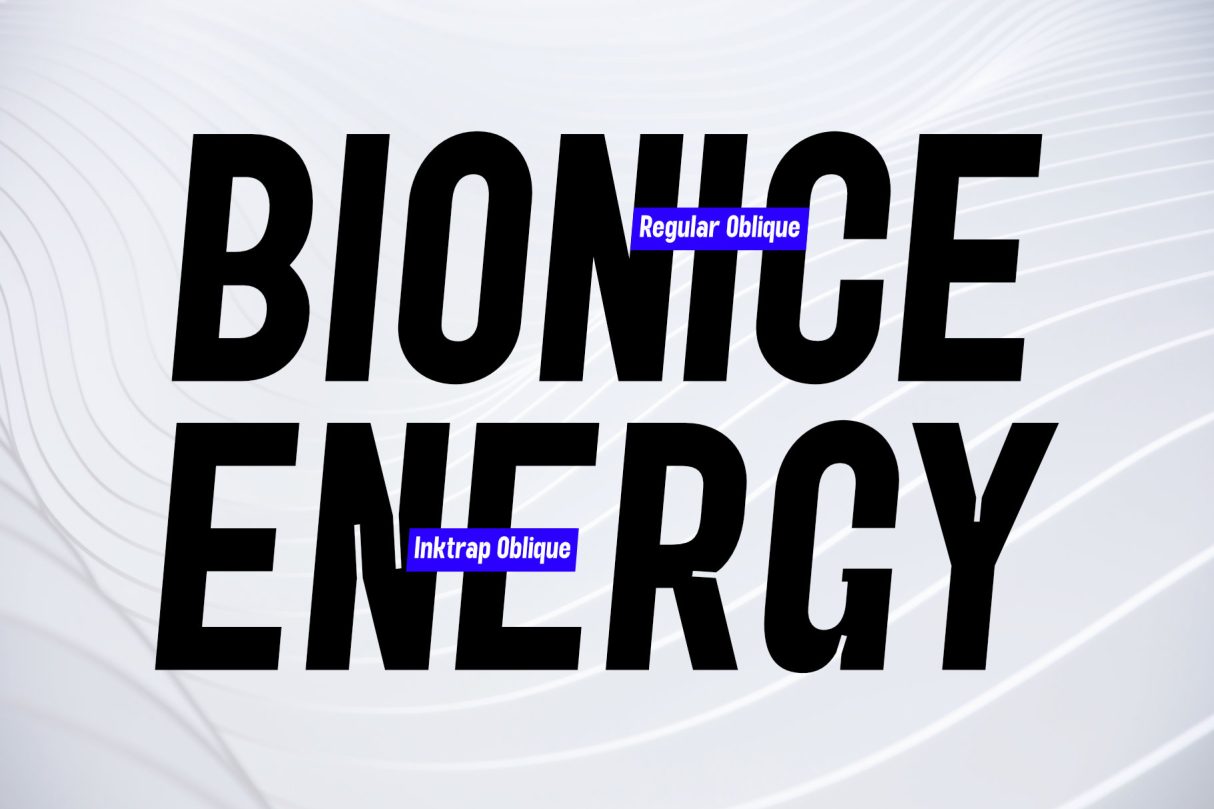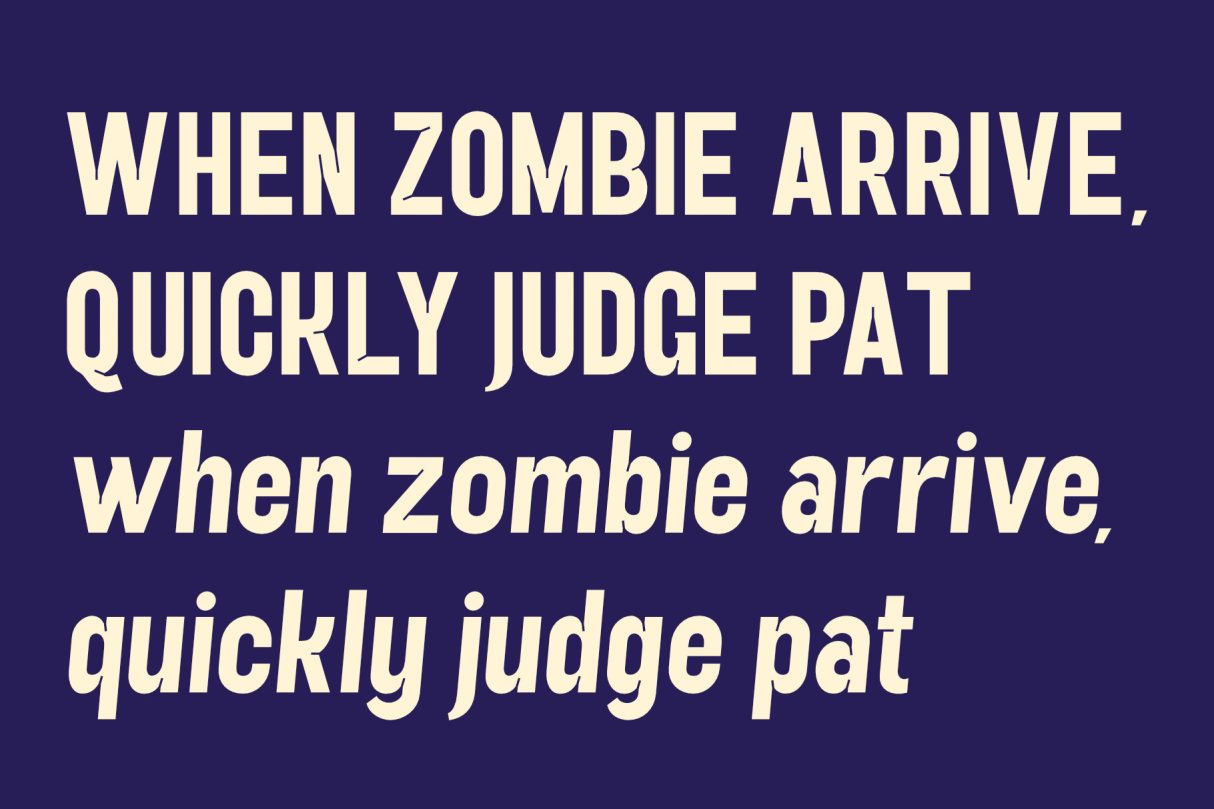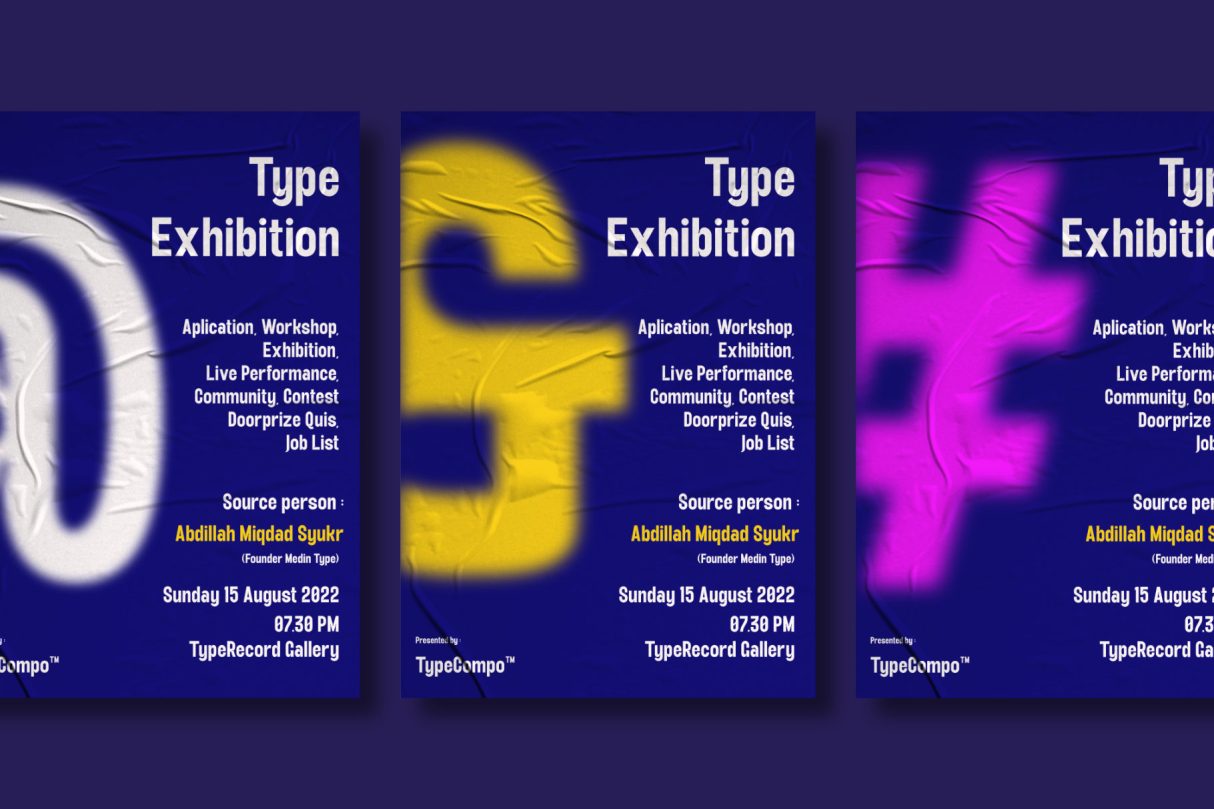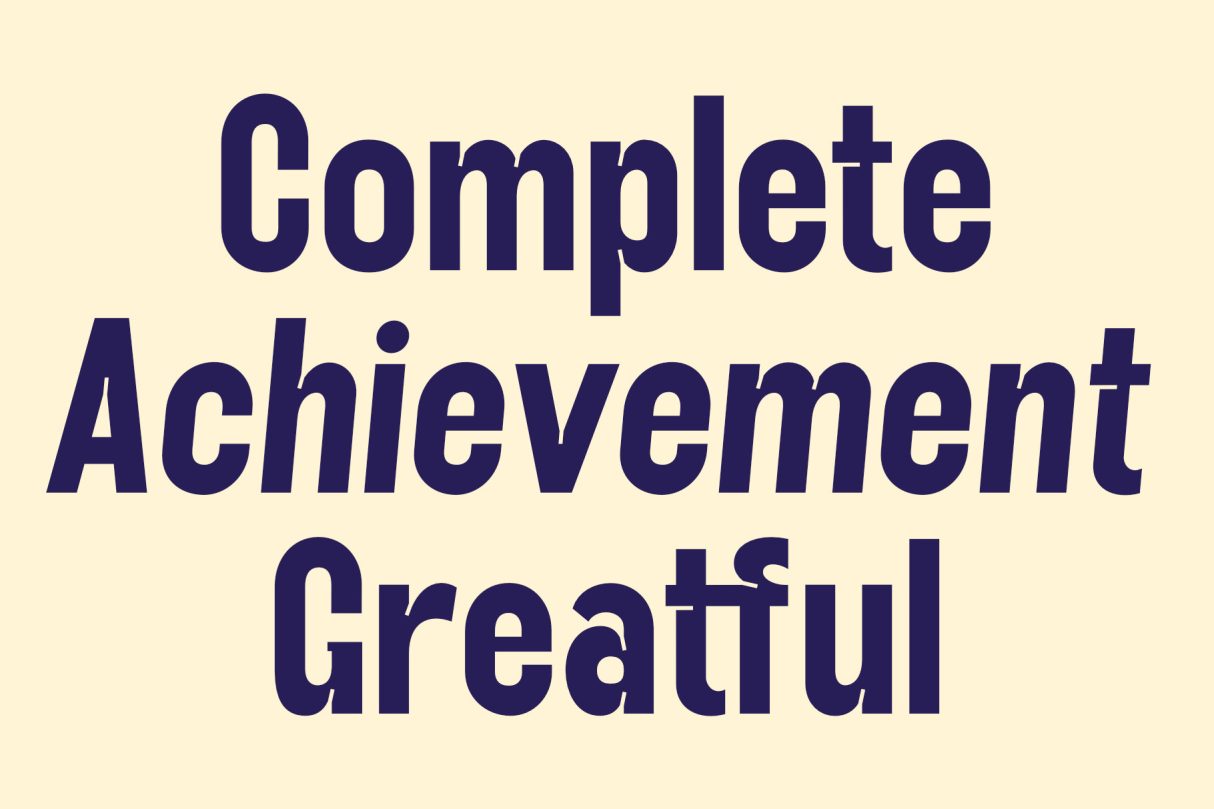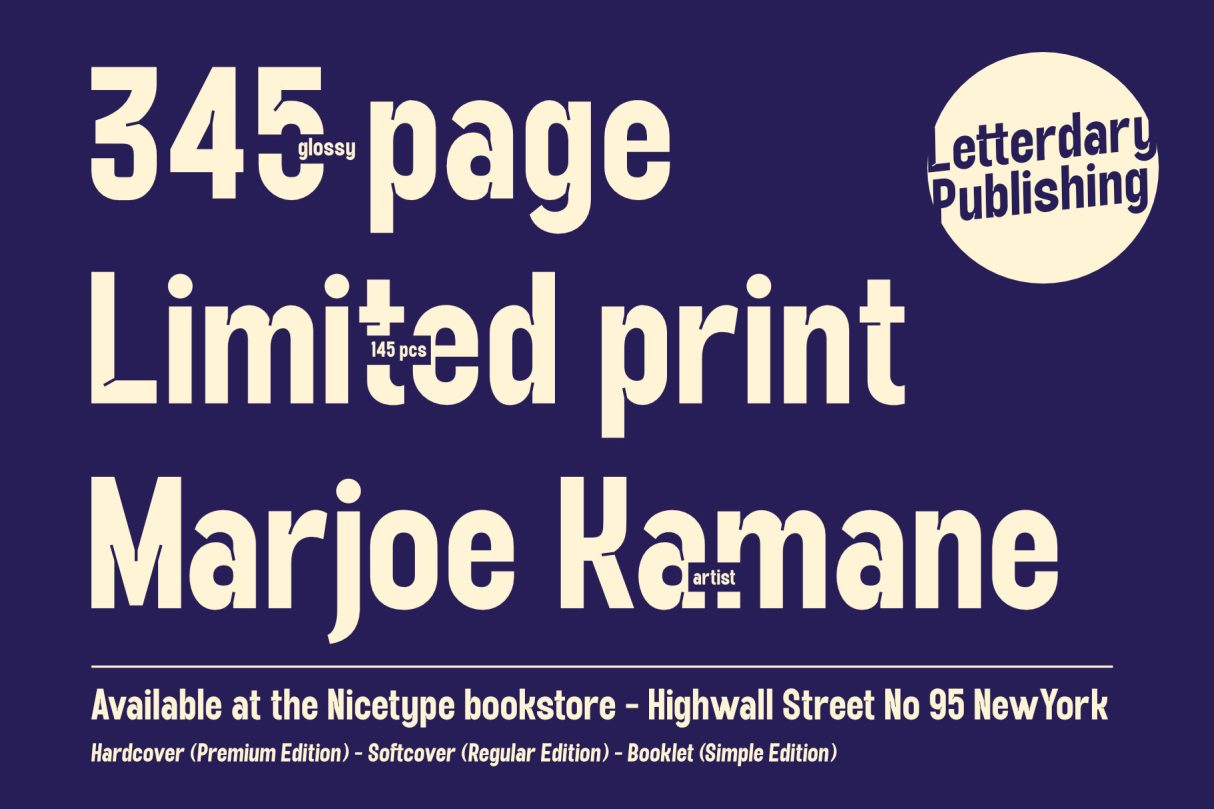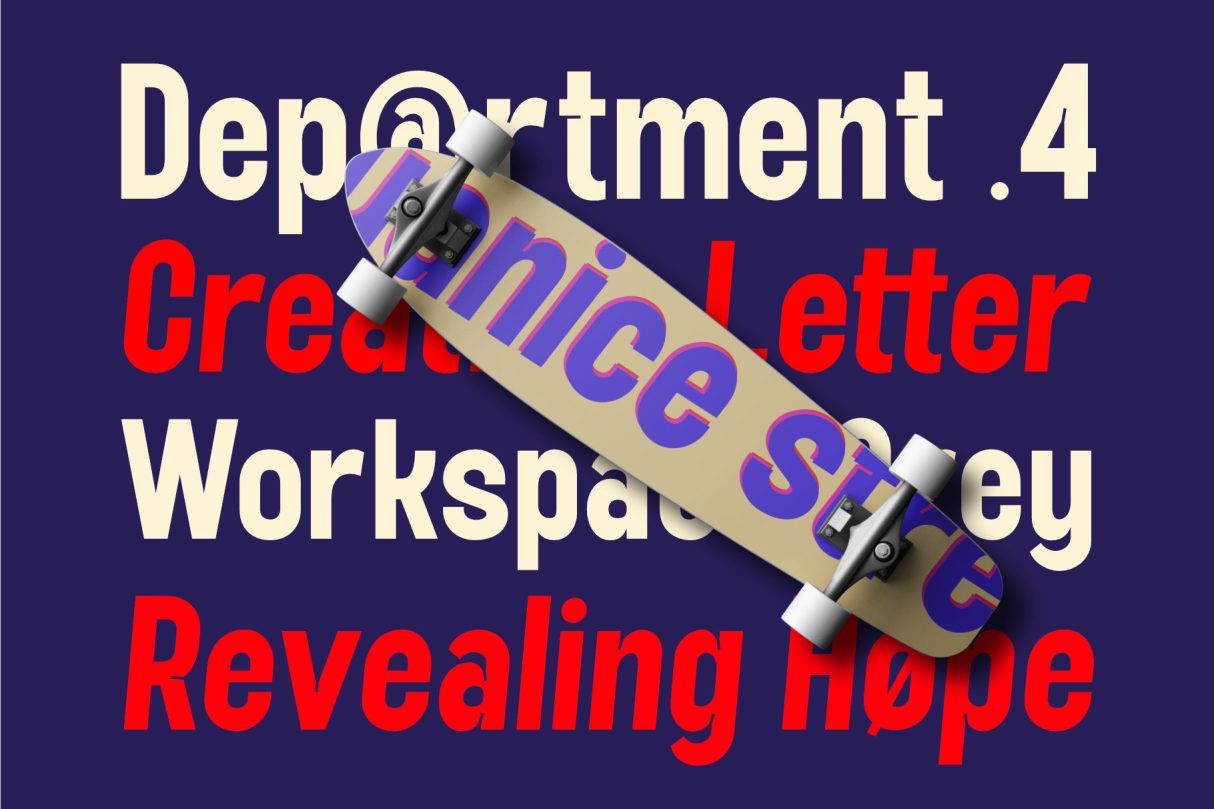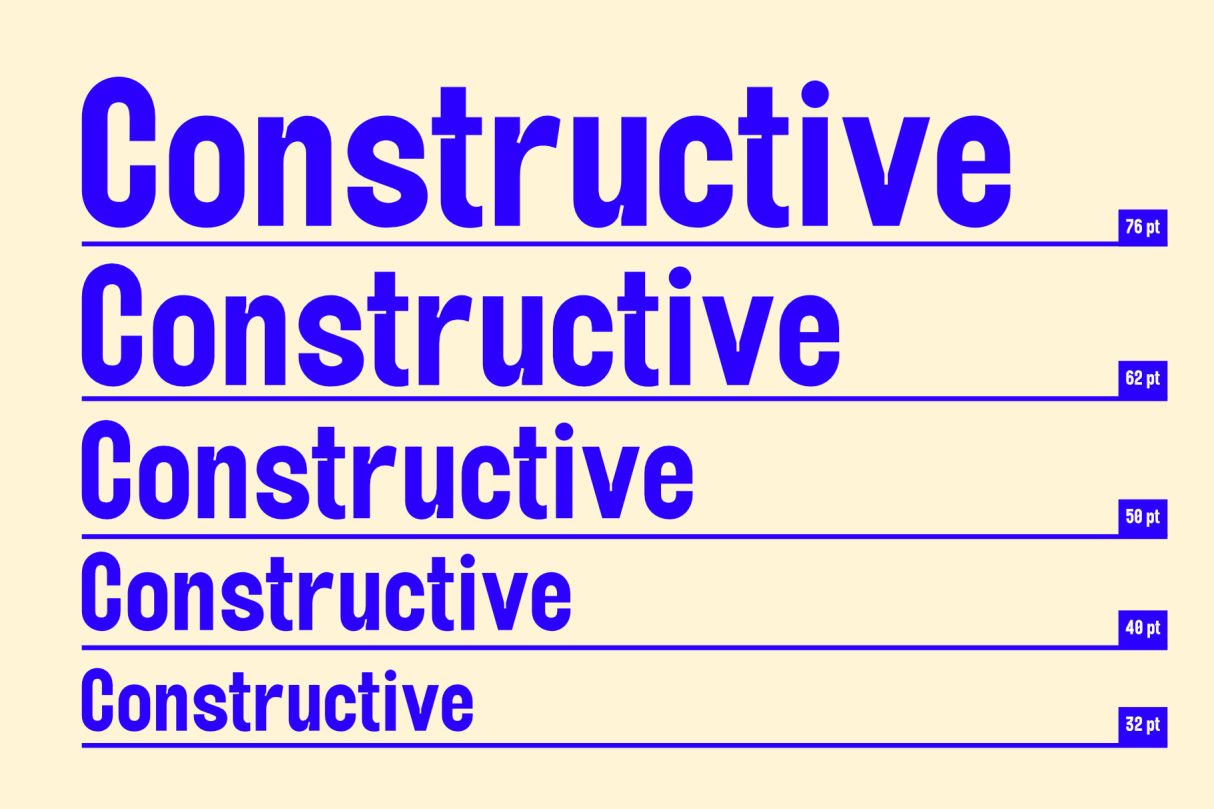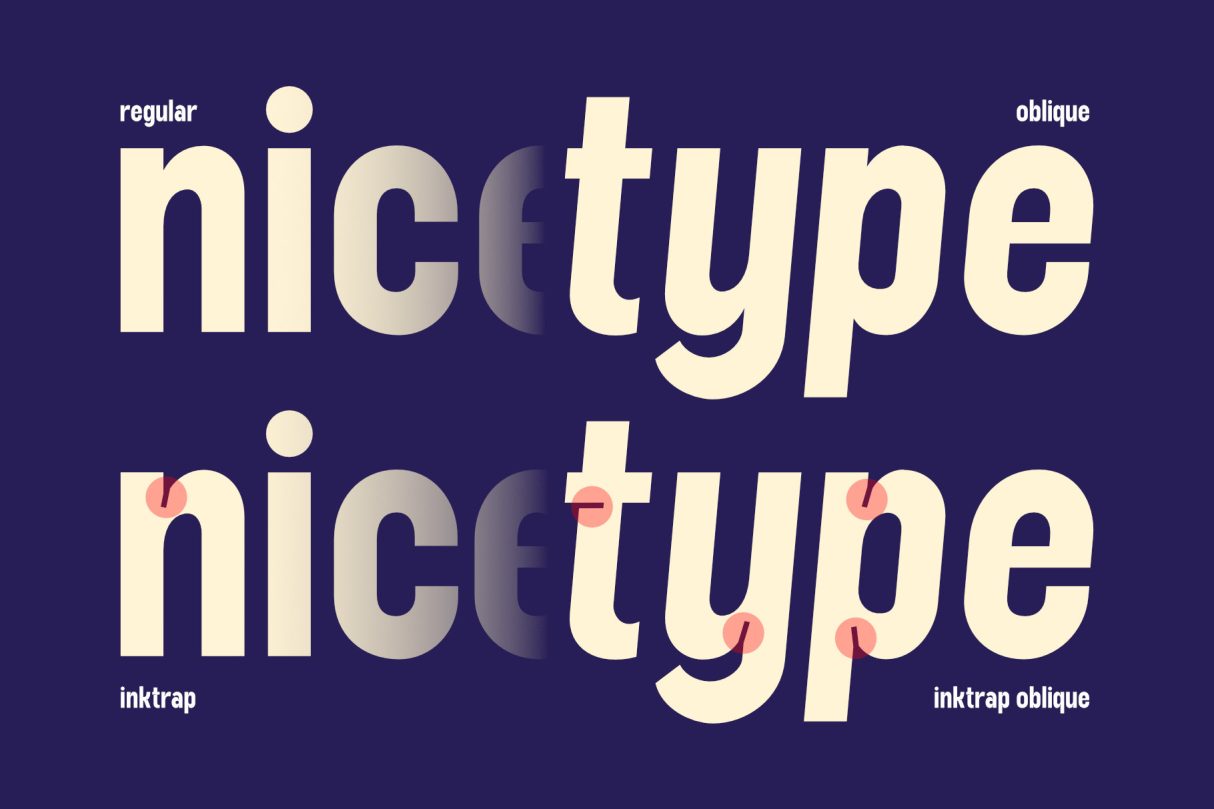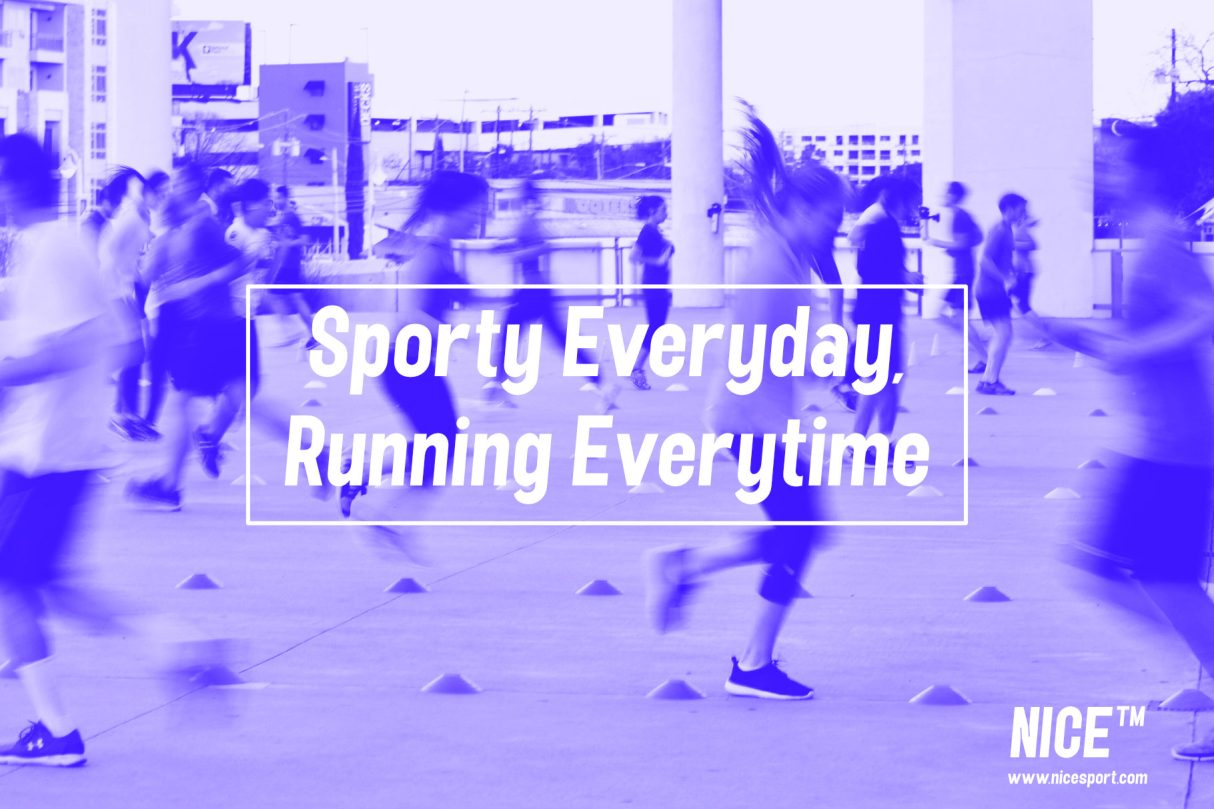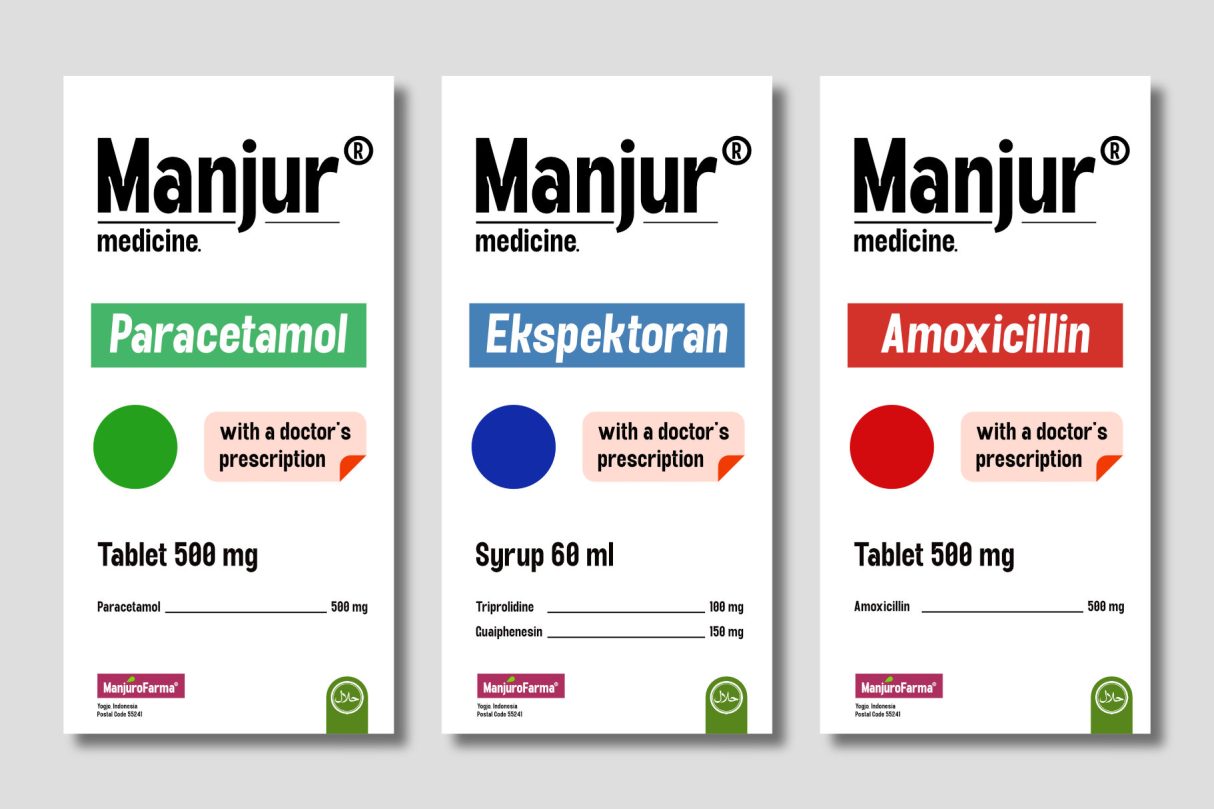
Yanice© is a semi-condensed sans serif font that has a strong and subtle character. Perfect for modern & industrial themed designs. Yanice© is available in 4 styles that you can use according to your needs. Get the Yanice© font now at a great price to speed up your work.